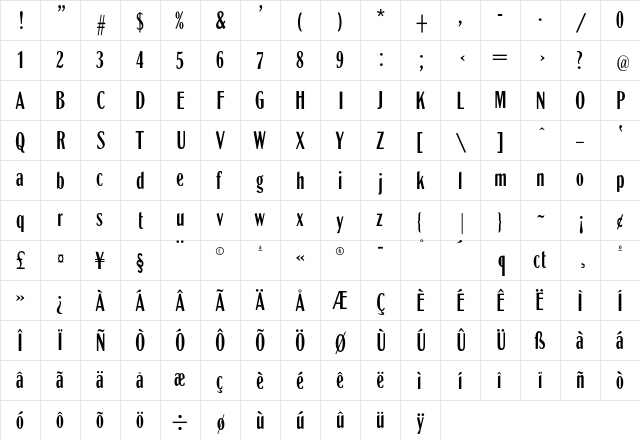
GlobeExCondL Regular Font Preview
GlobeExCondL Regular
Design Context for GlobeExCondL Typeface
GlobeExCondL offers clean, dependable letterforms without strong stylistic allegiance, making it a practical choice for designers who need flexibility. The condensed width makes it efficient for tight spaces without sacrificing legibility.